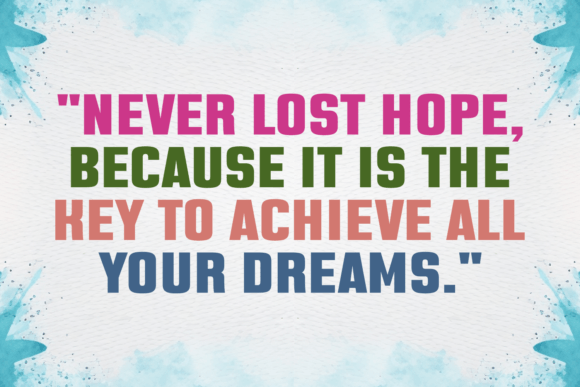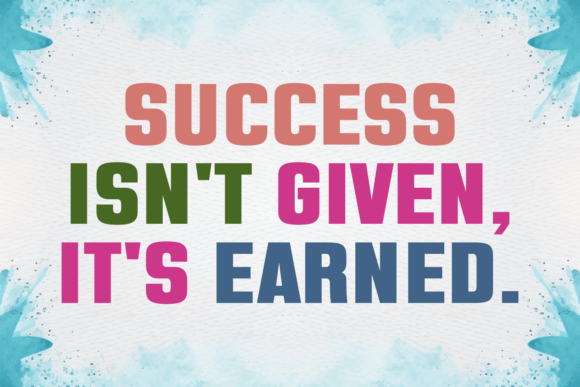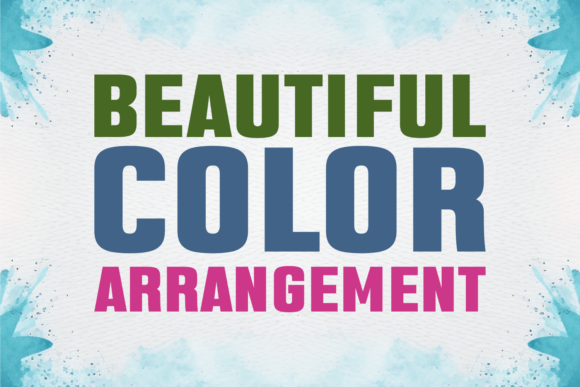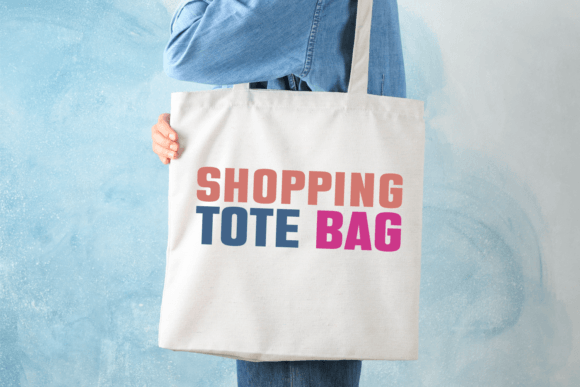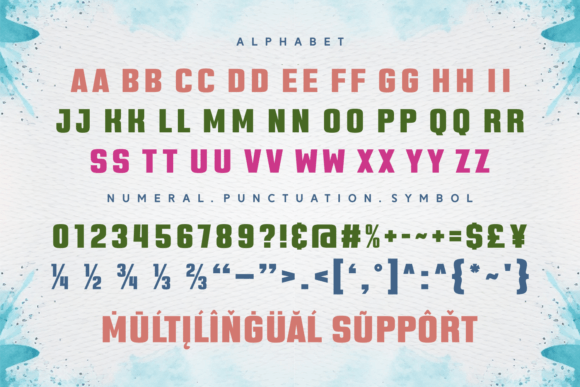
Getting Creative with Color Stamp Font
Have you ever stumbled upon a design element that completely transforms your creative project? For many designers, that moment comes when they discover a font that perfectly captures the essence of their vision. For us, that moment came with the Color Stamp Font – a simple yet bold display font that adds a touch of whimsy charm to any design.
Whether you’re working on a branding project, creating posters, or designing digital materials, the Color Stamp Font is an invaluable design resource. Its versatility and vibrant appearance make it a standout choice for designers looking to leave a lasting impression. With its high-quality design and transparent background, this font is perfect for both print and digital media. And the best part? It’s available for free download, making it an accessible resource for designers of all levels.
Key Features of Color Stamp Font
- High-quality design resource with a wide range of creative possibilities for various projects
- Unique and customizable, making it an ideal design resource for creative projects requiring a personal touch
Honest Review: Color Stamp Font
I recently stumbled upon the Color Stamp Font and I’m excited to share my thoughts on this creative design resource. As a designer, I’m always on the lookout for high-quality fonts that can elevate my projects.
Here’s what I love about the Color Stamp Font: ✨
- Unique and playful characters that add a fun touch to my designs
- High-quality design that’s perfect for print or digital applications
However, I do have a few concerns: ⚠️
- Limited font styles and weights, which may not be suitable for complex design projects
- No bold or italic versions available, which can be a drawback for designers who prefer a more dynamic look
Overall, I think the Color Stamp Font is a great addition to any designer’s toolkit. While it may have some limitations, its unique style and high-quality design make it a valuable resource for creative projects. I’d definitely recommend it to fellow designers looking for a fun and free font option.
Color Stamp Font
The Color Stamp Font is perfect for creative projects, such as graphic design, digital art, and social media graphics. It’s also a great design resource for creating high-quality images with a unique and stylish look.